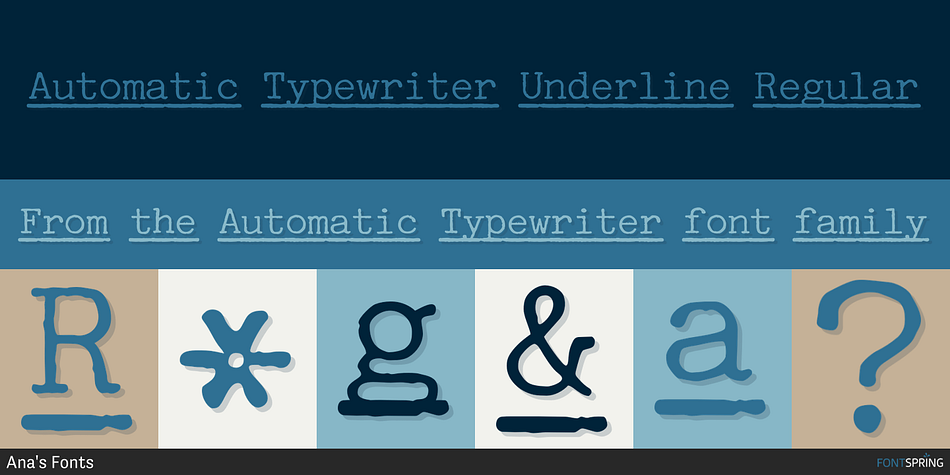
Automatic Typewriter Underline Regular
Designed by Ana Parracho, Automatic Typewriter is a typewriter font family. This typeface has eight styles and was published by Ana's Fonts.
Automatic Typewriter is a monospaced typewriter font in two styles: Regular and Italic, and two weights: Regular and Bold, plus Underline versions, for a total of 8 fonts. This makes it versatile and ready to use in modern and vintage designs alike. This font is also very legible at a wide range of sizes and looks great in both long or short texts, in digital collages, branding and packaging, social media posts, logotypes, etc.
- Automatic Typewriter font family with 8 individual fonts, with a soft realistic texture